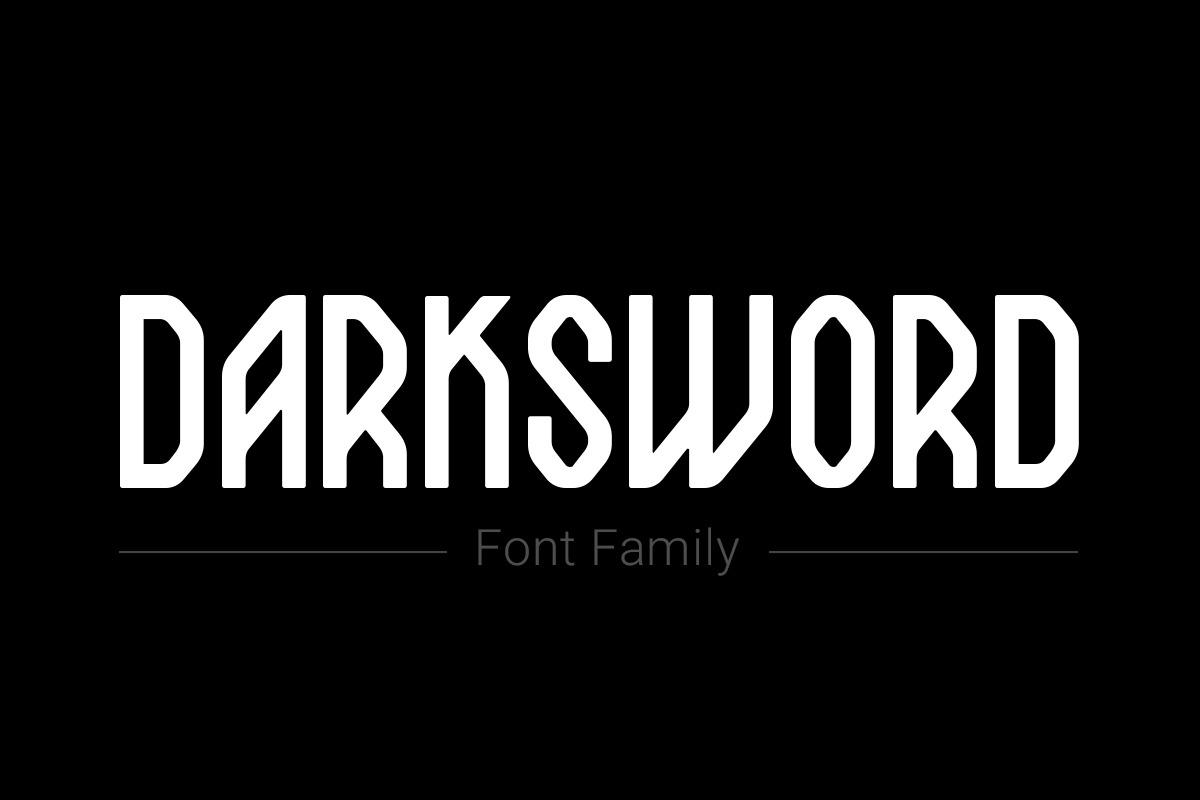
DarkSword Font
DarkSword Family is Four Fonts, which create ancient magic myths and gothic atmosphere and style. It is good looking as header and as text both.